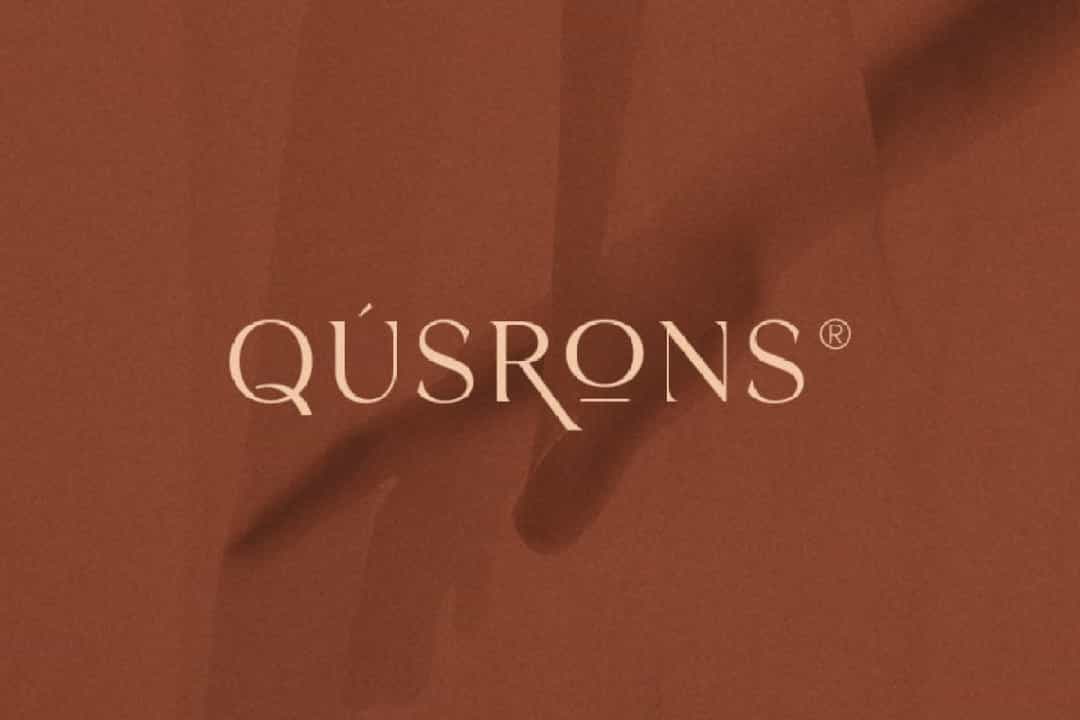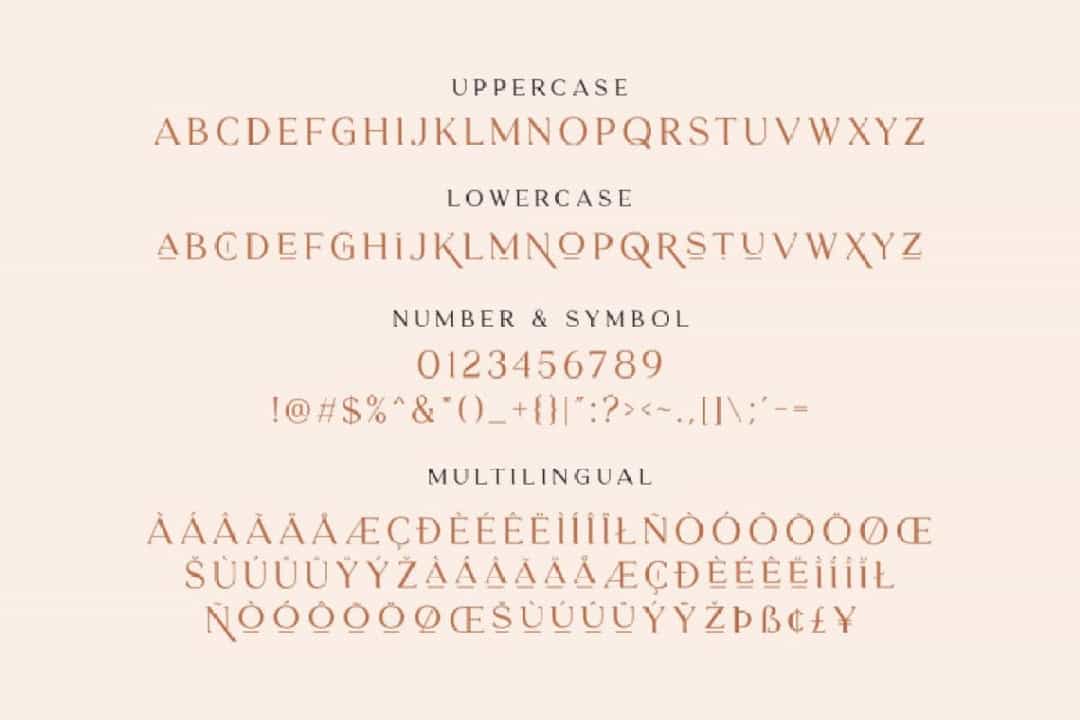
Herkings is a serif-based font with unique lowercase and uppercase letters, making for an appealing minimalist and contemporary design aesthetic. Perfect for logotypes or branding projects.